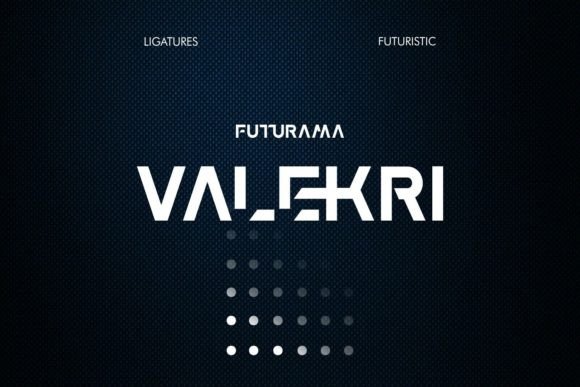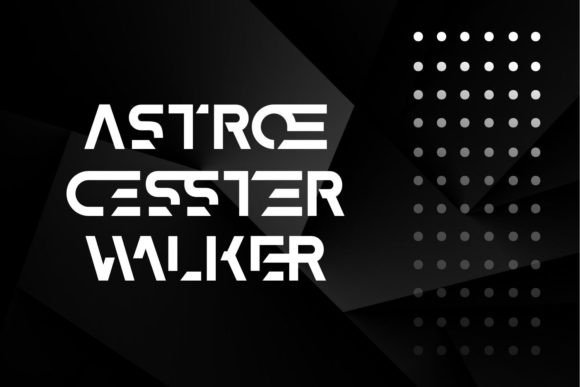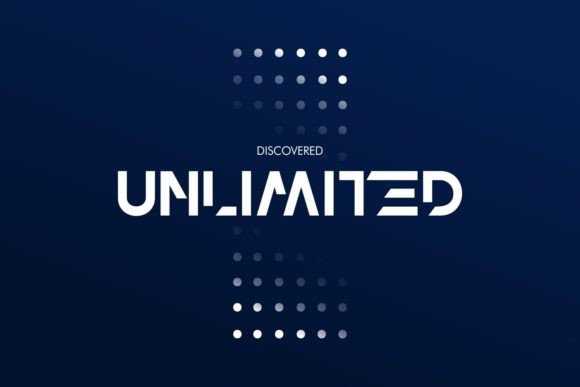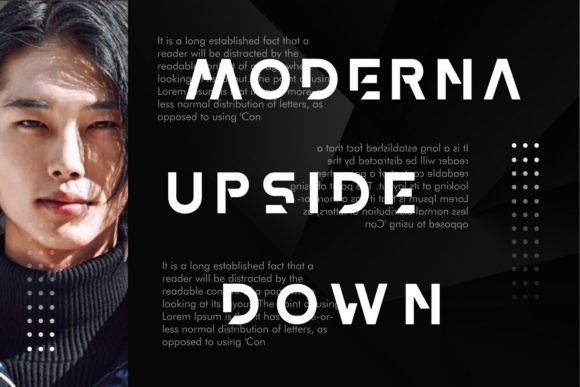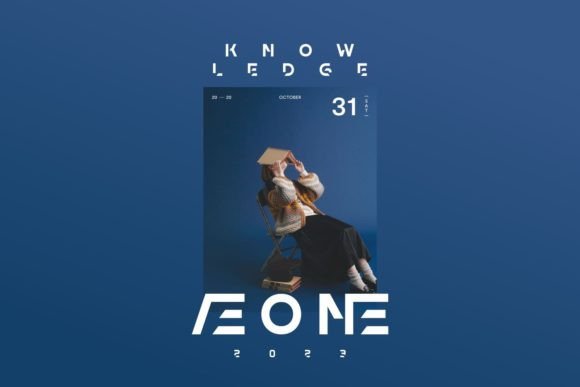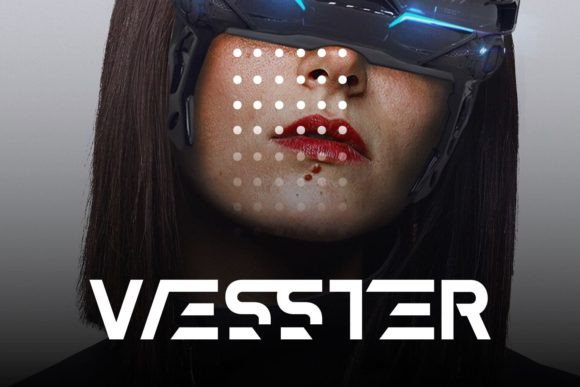
Meet Exeroe Font, a minimalist yet luxurious display font designed to meet the visual needs of a technological development. Created to make a statement, Exeroe Font is perfect for branding, design templates, invitations, calendars, posters, headlines, brochures, promotional tools, and editorial designs. With its clean lines and sophisticated style, Exeroe Font is a valuable addition to any designer’s toolkit.
Exeroe Font Key Features
- Font Family: Exeroe Font is a sans-serif font family designed for digital use.
- Unique Characteristics: Exeroe Font features a clean and modern design with a focus on legibility, making it ideal for body text and digital interfaces.
- Font Styles: Includes a range of font styles, including light, regular, bold, and italic, allowing for versatility in typography.
Designer Review: Exeroe Font
Overall, I found Exeroe Font to be a decent addition to any typographer’s arsenal. There are some things it does well, and some things it could improve on.
- Exeroe Font has a unique, modern aesthetic that sets it apart from other fonts in its category.
- It’s highly legible, even at small font sizes, making it a great choice for body text or headings.
- The font has a clean, minimalist design that works well for digital and print applications.
- Exeroe Font is highly versatile, suitable for a wide range of industries and use cases.
- The font’s x-height is a bit too low, which can make it difficult to read in certain situations.
- Exeroe Font lacks a bold or italic weight, which can limit its use in certain contexts.
- The font’s kerning could be improved, particularly with certain letter combinations.
While Exeroe Font has its limitations, it’s a solid choice for designers and typographers looking for a modern, versatile font. With some tweaks to its x-height, bold/italic weights, and kerning, it could be an even more effective choice for a wide range of applications.
Getting the Most Out of Exeroe Font
To get the most out of Exeroe Font, consider the following tips:
- Use it for headings and titles to create a clear visual hierarchy.
- Pair it with a clean and simple font for body text.
- Experiment with different font sizes and styles to create visual interest.